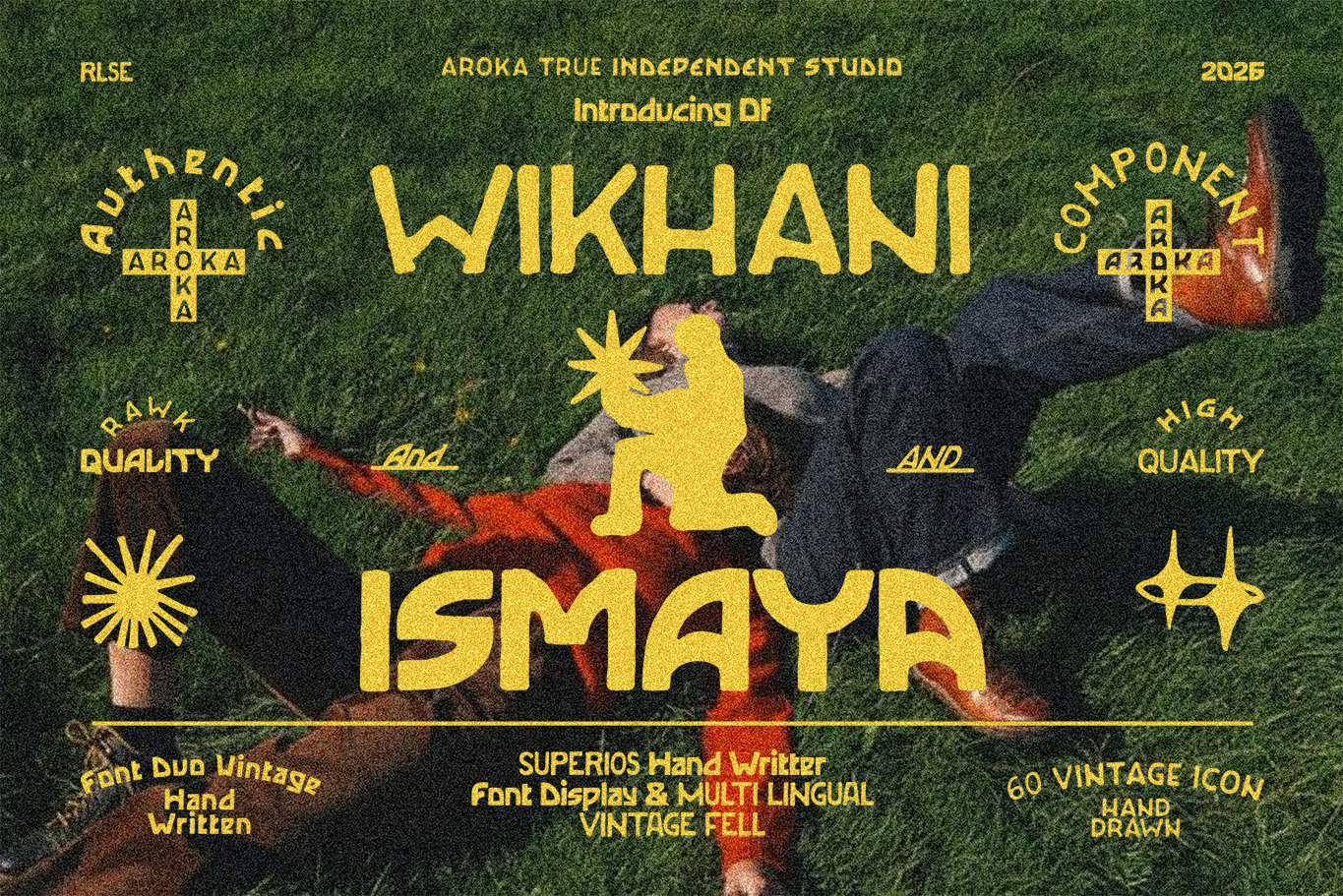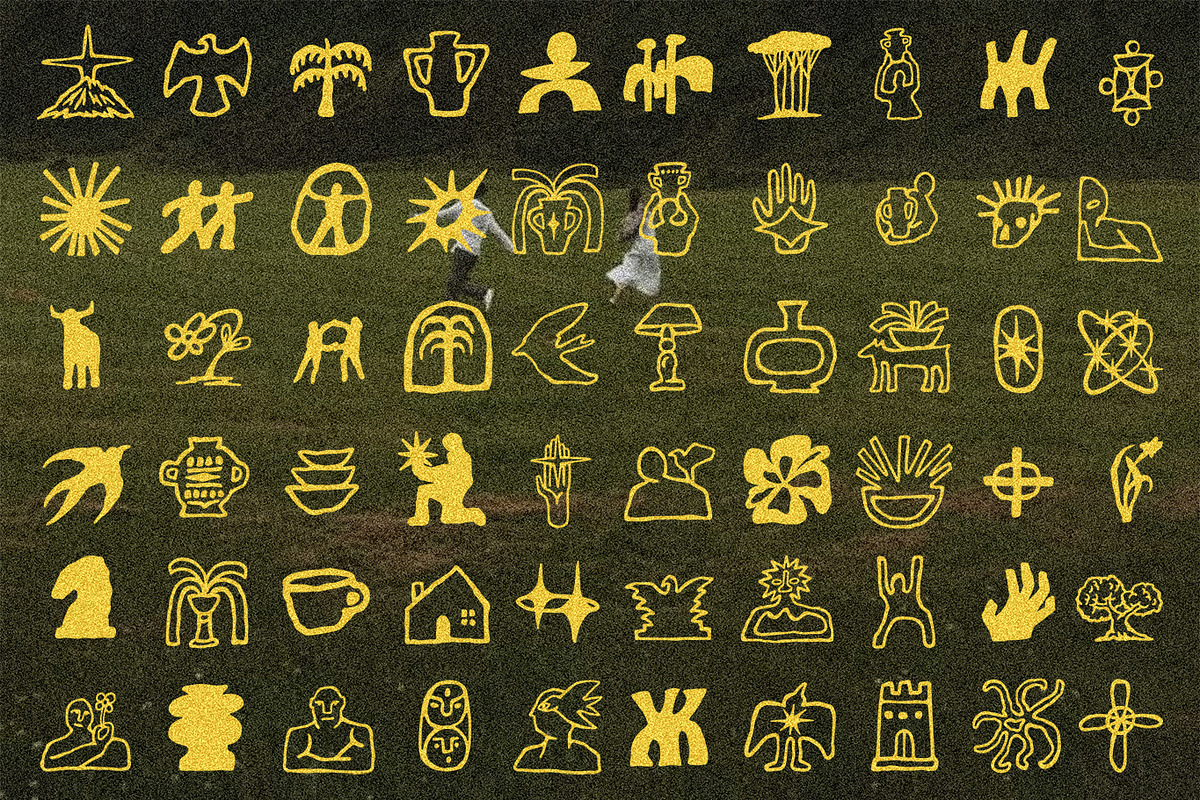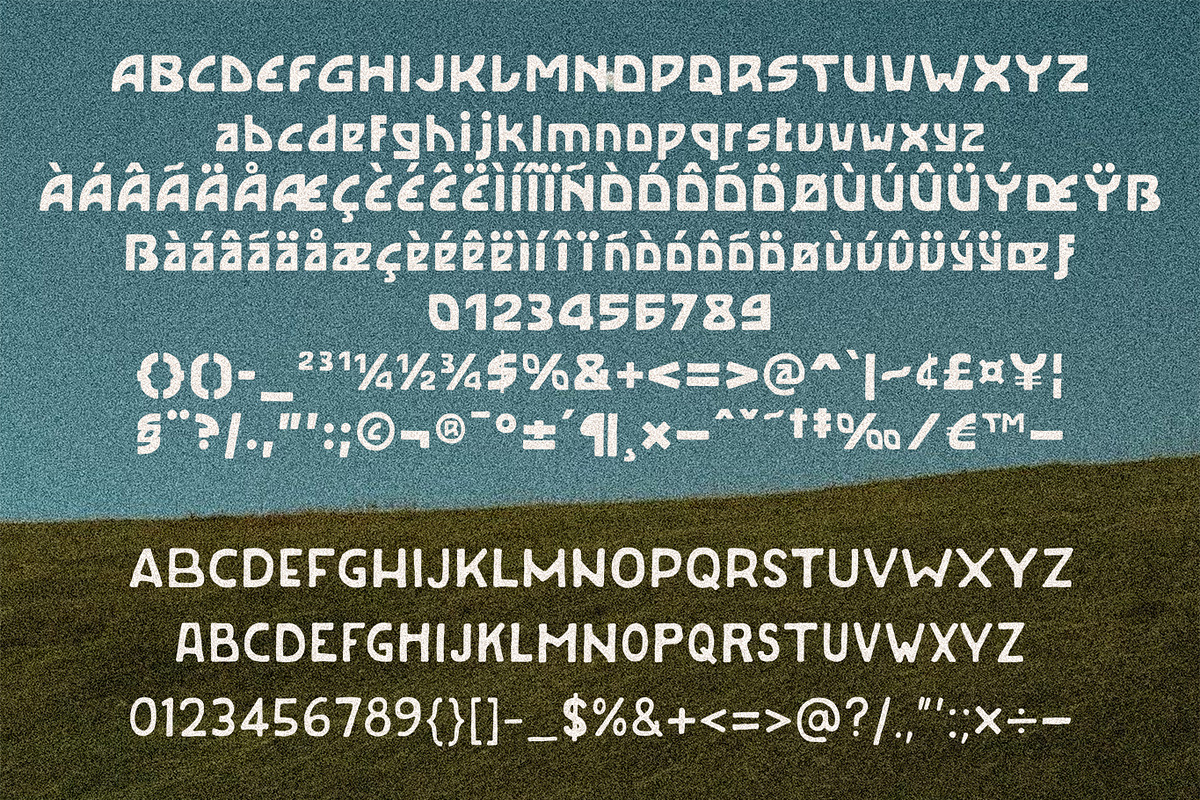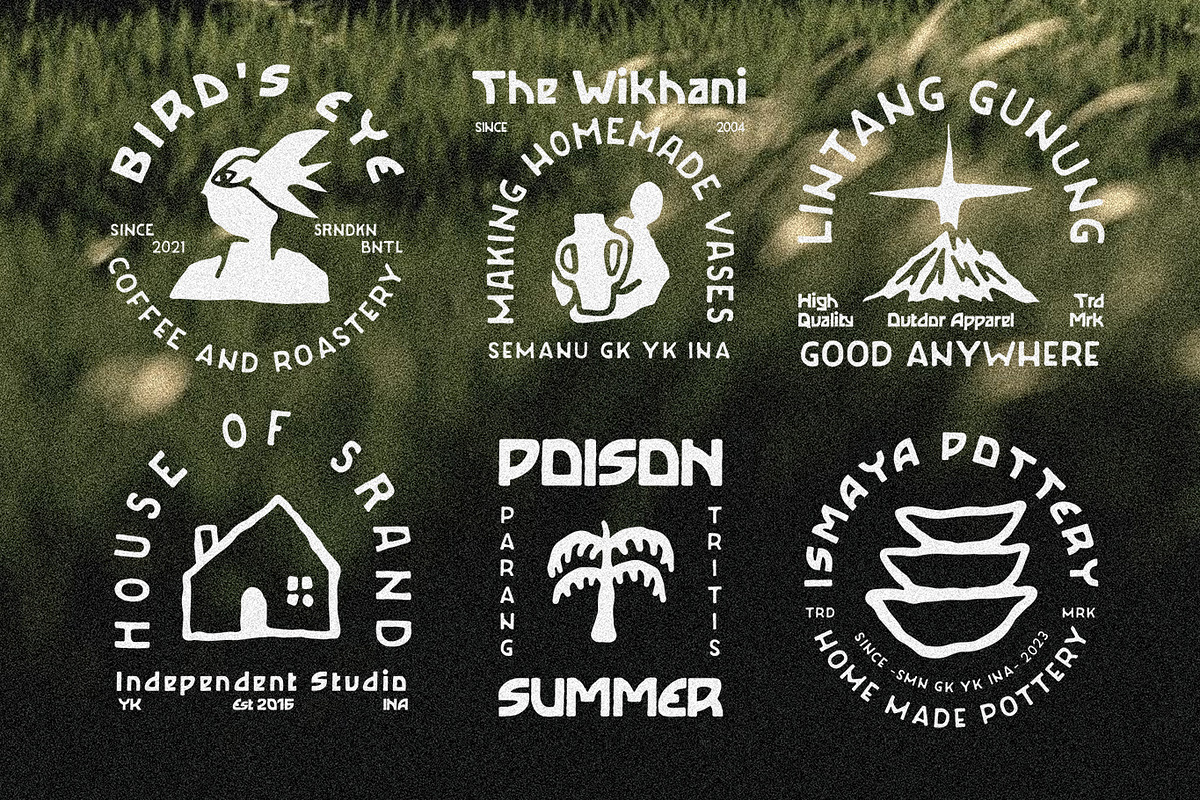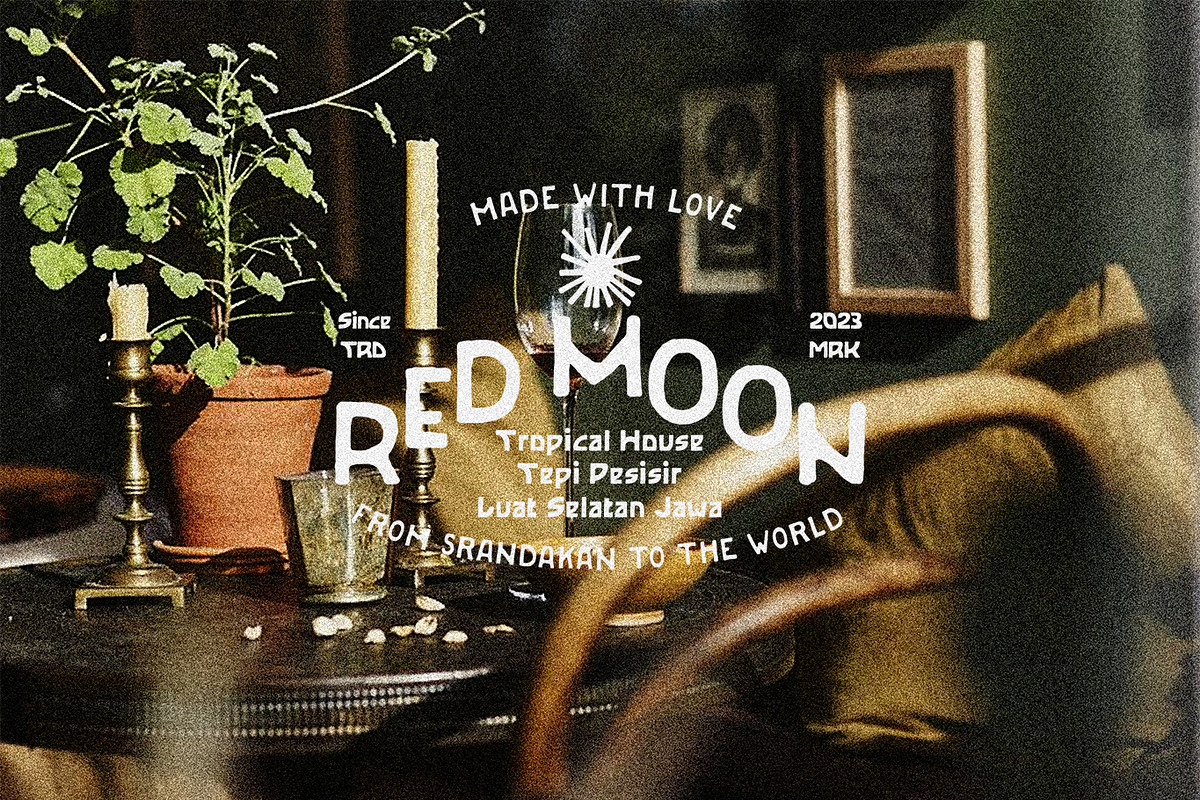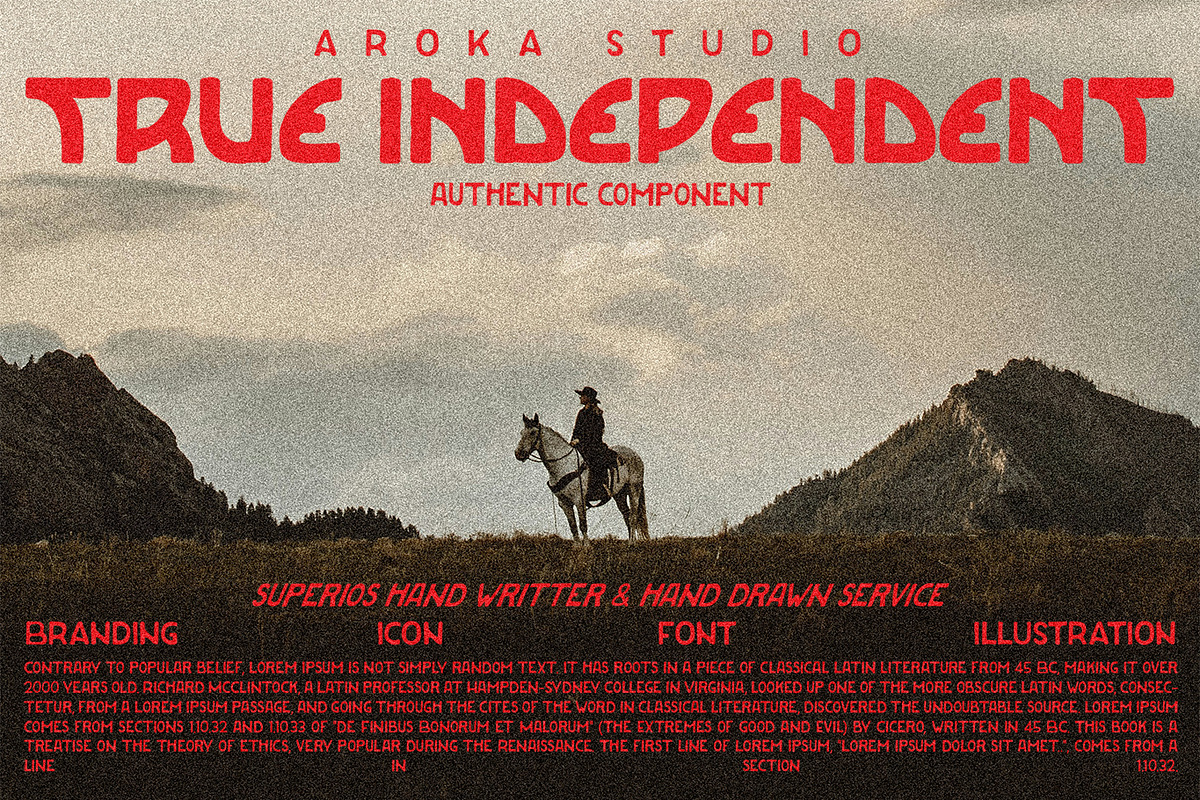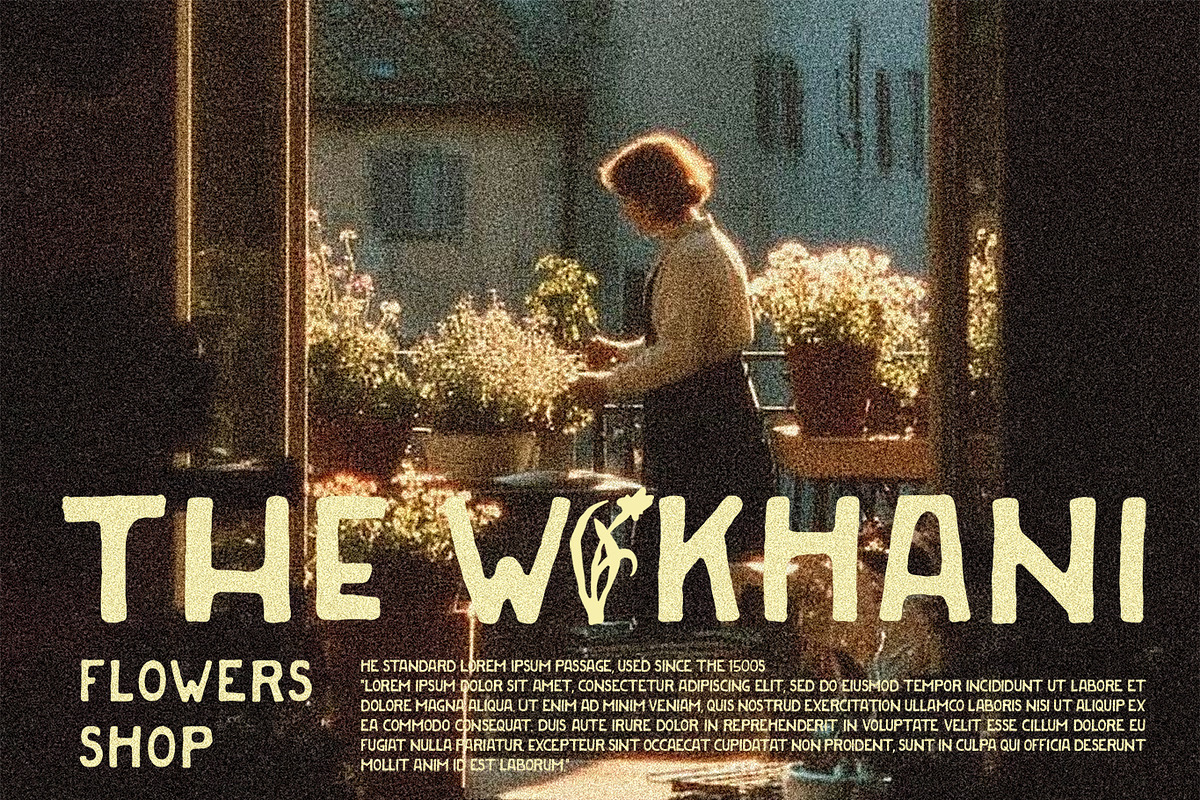
Wikhani & Ismaya Handwritten Font
Font Duo! Wikhani & Ismaya, this hand-drawn font is influenced by the many graffiti-like graffiti found on city walls. It comes with 60 vintage icons in Adobe Illustration, PNG, SVG, and PDF formats, making it very easy to use and edit. The "Wikhani" display font is slightly slim, while the "Ismaya" font is very bold with slightly graffiti- or cubist-inspired characters. This font is multilingual, of course. Enjoy!